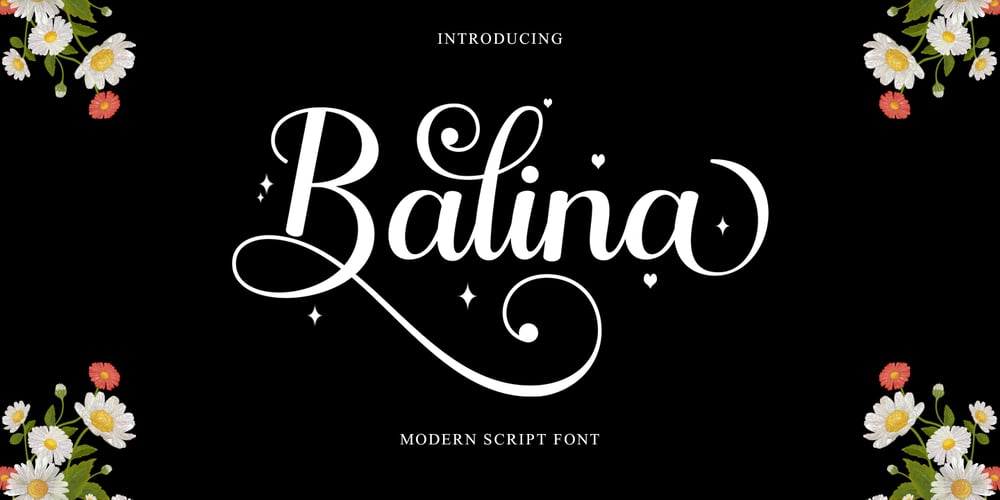
Balina Font Family was designed by M azidin Alfani and published by Fanart Studio. Balina contains 1 styles and family package options. Balina is a distinct and graceful script font. Fall for its ravishing style and use it to create gorgeous designs. This font is PUA encoded which means you can access all glyphs and swashes with ease